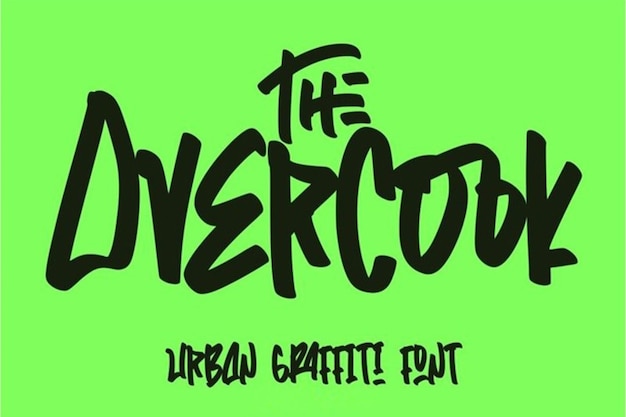
The Overcook Font
"The Overcook" font sizzles with the raw energy of graffiti culture, embodying the urban vibe of the streets and the rhythm of rap. With its bold, expressive strokes, it captures the essence of the ghetto scene. Perfect for infusing designs with streetwise flair, making an unapologetic statement with every letter.